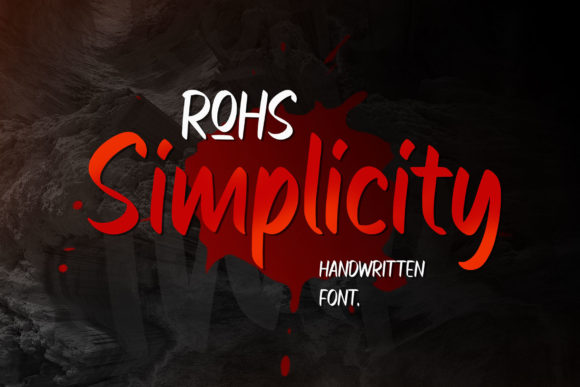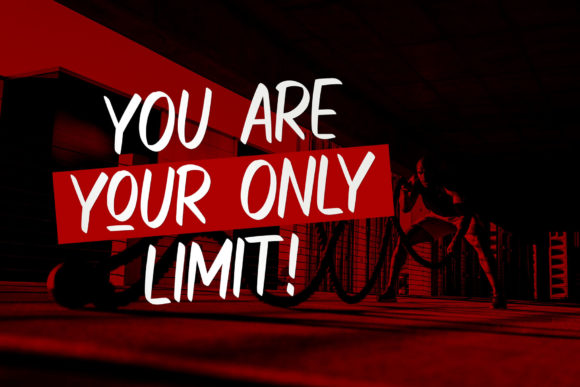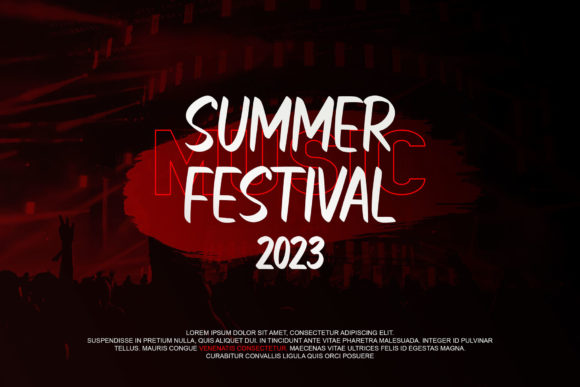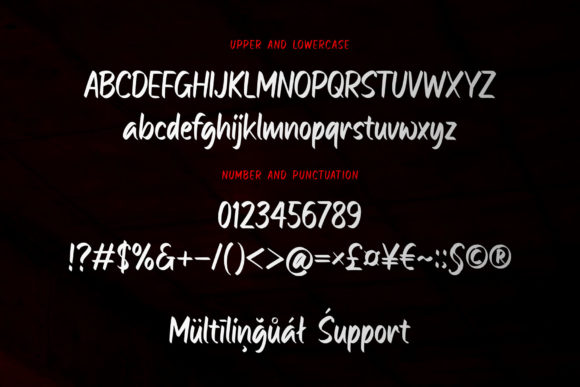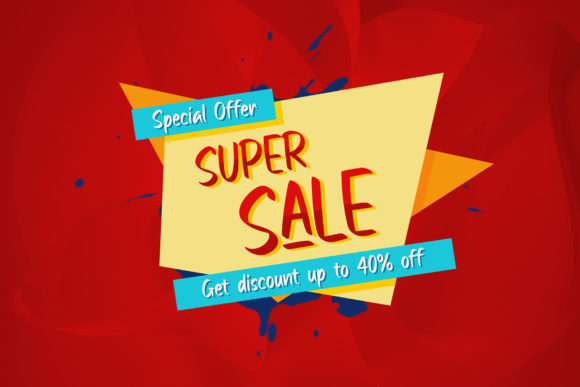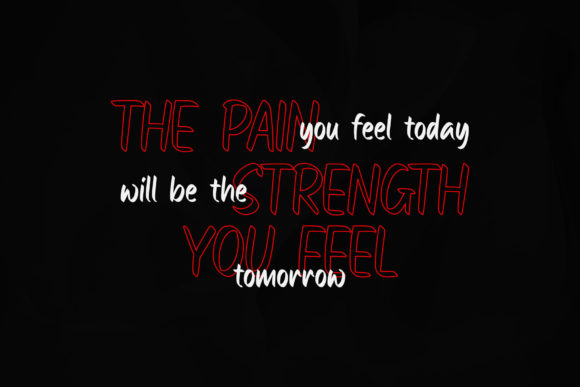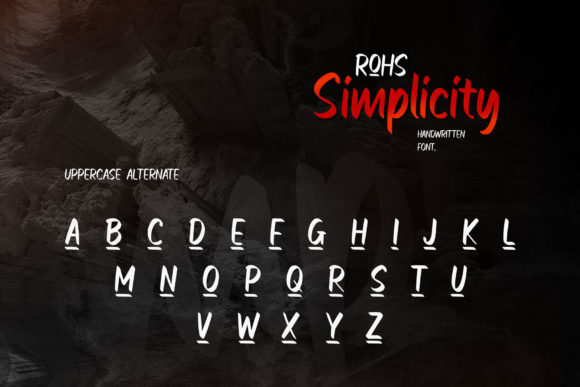
Rohs Simplicity Font
About Rohs Simplicity Font
Rohs Simplicity is a neat and relaxed paint-brushed handwritten font designed to bring a sense of ease and simplicity to your creative projects. Its versatility makes it suitable for various applications, including branding, stationery design, social media graphics, packaging, magazine layout, prints, and more. Notably, Rohs Simplicity is PUA encoded, allowing easy access to all its glyphs and swashes for enhanced customization.
The neat and relaxed nature of Rohs Simplicity adds a casual and approachable touch to your text, making it perfect for projects that require a laid-back and friendly aesthetic. Whether used in branding or social media graphics, this font contributes to a visually pleasing and relatable design.
In stationery design, Rohs Simplicity brings a paint-brushed handwritten charm that adds character to your written content. The font’s relaxed style enhances the overall visual appeal, creating a distinctive and memorable impression.
For packaging and magazine layouts, Rohs Simplicity offers a clean and modern look with its neat paint-brushed strokes. Its versatility ensures that it can adapt to different design contexts, providing a cohesive and engaging visual experience.
The PUA encoding feature adds an extra layer of convenience, allowing users to access all glyphs and swashes with ease. This feature enhances the font’s flexibility, enabling designers to explore various character variations and customize their designs seamlessly.
In summary, Rohs Simplicity is more than just a font; it’s a neat and relaxed design tool that adds a touch of paint-brushed charm to your projects. Whether applied to branding, stationery, social media, or packaging, Rohs Simplicity brings a casual and friendly vibe that resonates with simplicity and approachability.